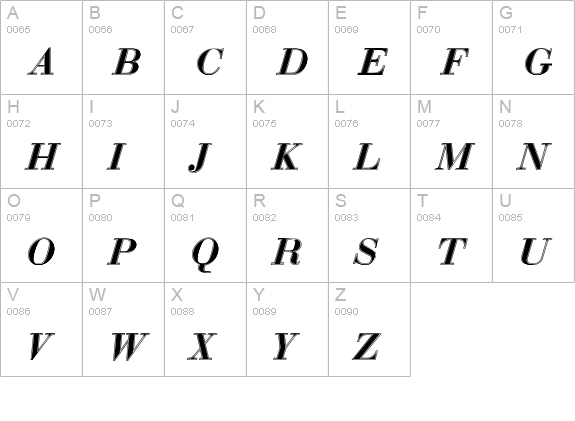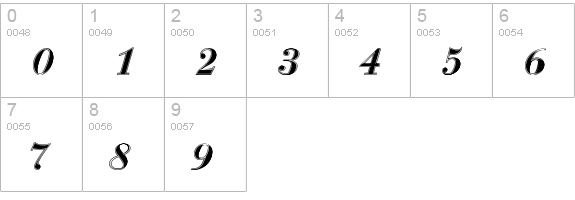
Bauer Bodoni T Demi Bold Italic In1 Font Details
Bauer Bodoni T Demi Bold Italic In1 is a sub-bold, structured, italic variant in the Bauer typeface family \xE2\x80\x94 well suited to sub-headlines and emphasised passages.
Bauer Bodoni T Demi Bold Italic In1 font is a stunning display typeface that exudes elegance and sophistication. With its bold weight and stylish italic design, this font is perfect for creating eye-catching headlines and striking graphic designs. The sharp serifs and clean lines of Bauer Bodoni T Demi Bold Italic In1 font add a touch of modern flair to any project. Best of all, this font is available for free download at FontsMarket.com, making it easily accessible for designers and creatives looking to elevate their typographic creations. Whether you're working on a branding project, editorial layout, or digital design, Bauer Bodoni T Demi Bold Italic In1 font is sure to make a bold statement and leave a lasting impression.